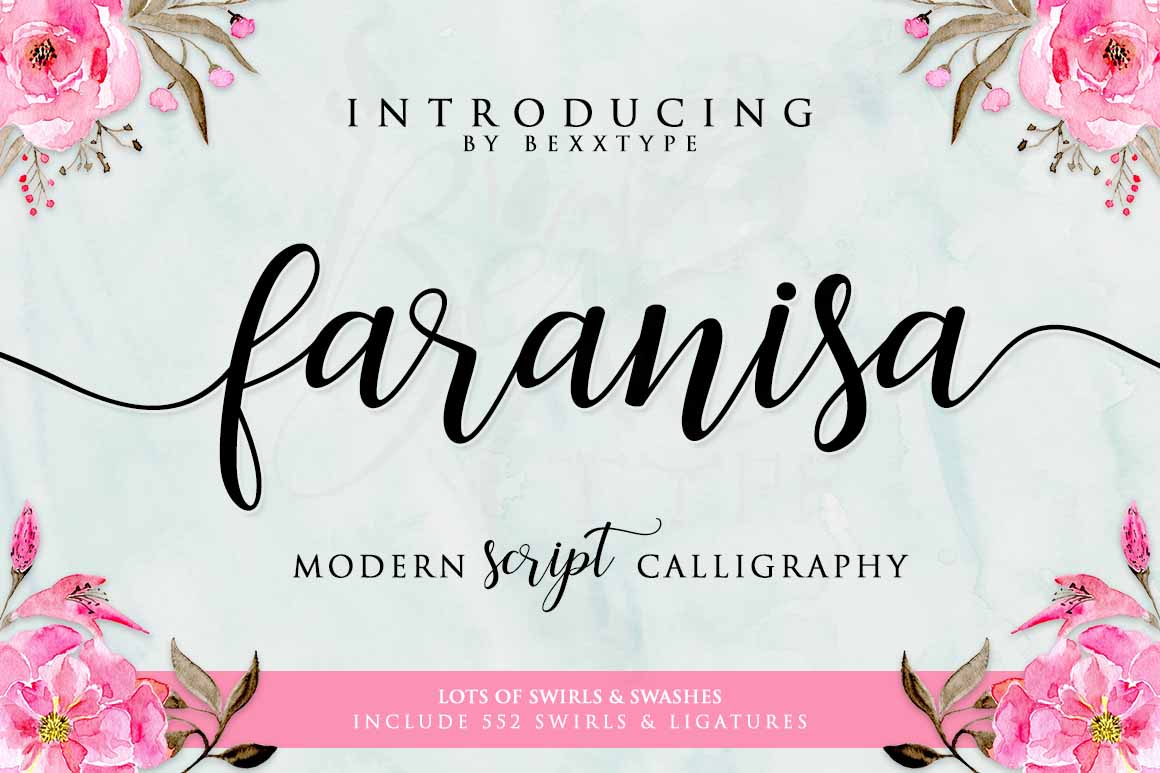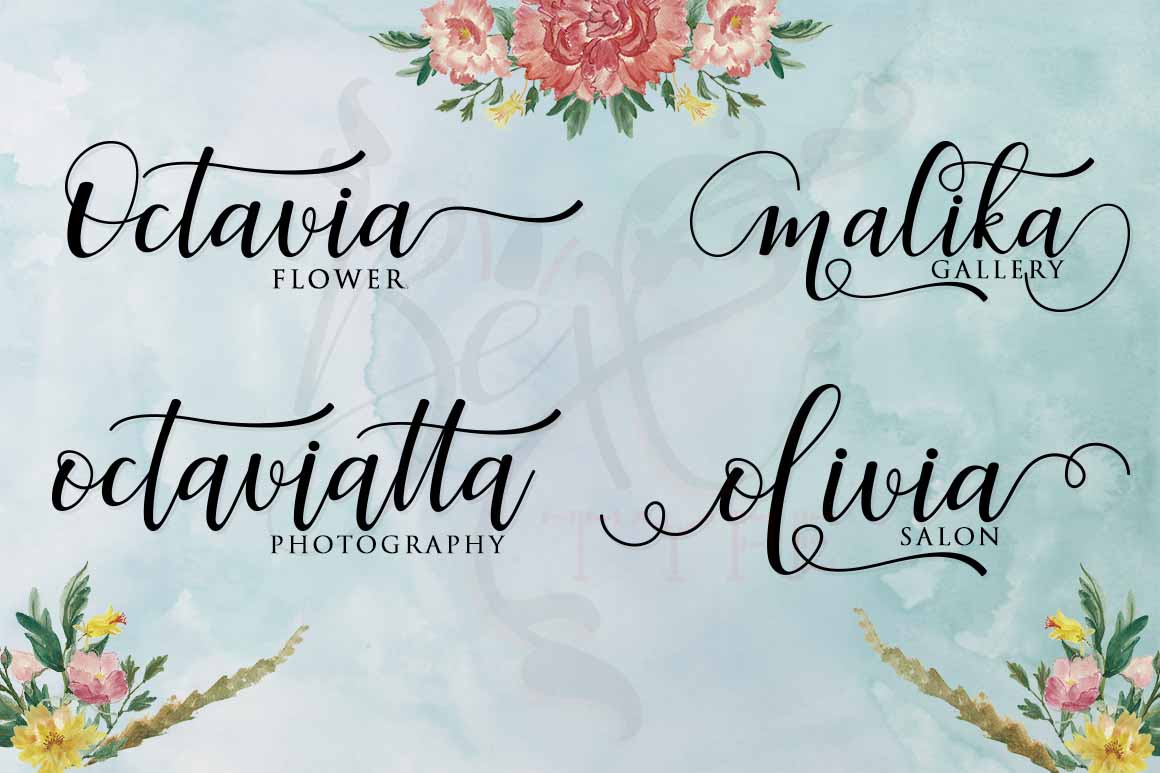
Faranisa Script Font
Faranisa Script a new fresh & modern script with a handmade calligraphy style, decorative characters and a dancing baseline! So beautiful on invitation like greeting cards, branding materials, business cards, quotes, posters, and more!!
Faranisa Script come with 552 glyphs. The alternative characters were divided into several Open Type features such as Swash/Swirl, Stylistic Sets & Stylistic Alternates. The Open Type features can be accessed by using Open Type savvy programs such as Adobe Illustrator, Adobe InDesign, Adobe Photoshop Corel Draw X version, And Microsoft Word. And this Font has given PUA unicode (specially coded fonts). so that all the alternate characters can easily be accessed in full by a craftsman or designer.
| Designer Name: | Bexxtype |